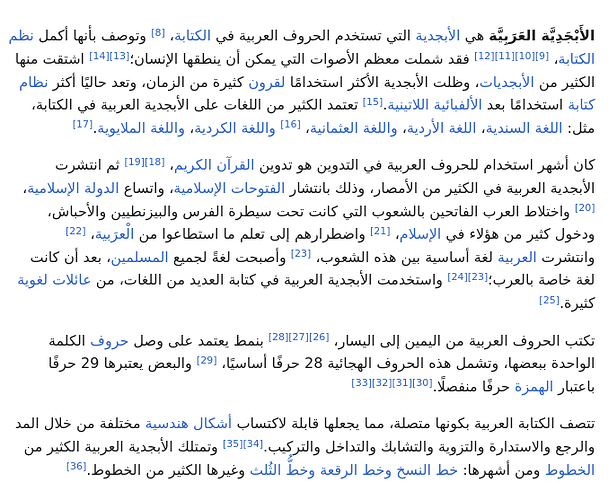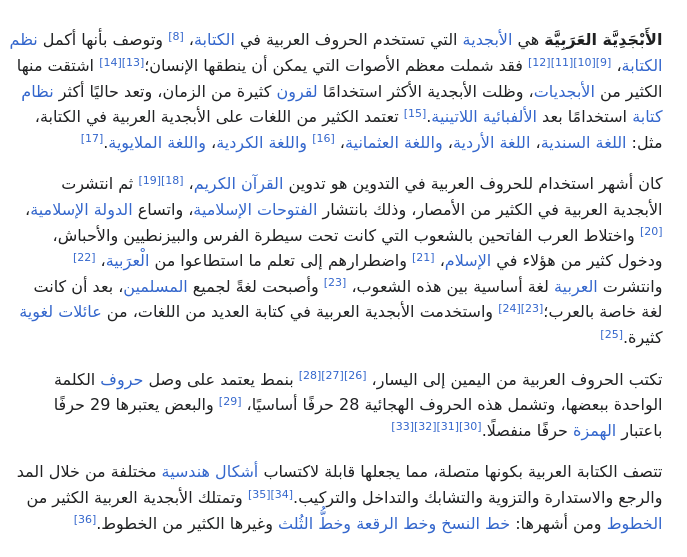
I know the solution by installing some Arabic fonts.
But, my question is why this issue exists till now? And it’s not with KDE version, it’s only with Gnome. What’s the problem? I read posts 6 years ago and more with the same issue, I think that’s weird.
This is the default Arabic font:
I can’t read arabic.
I can’t see the issue you are having
from how you phrased your question.
In other words:
What is the problem?
It should be something like this:
The default Arabic font installed only on Gnome version is not really usable for reading. On KDE, the default one is perfect.
… as I said:
I can’t read arabic.
thus:
I can’t spot a problem.
People who can read arabic might spot your problem.
I can’t.
Perhaps you should explain your problem a bit … better.
It’s all about type of font. The default one on Gnome is not readable. On the other hand, KDE default Arabic font is great. So, I am asking why the default one on Gnome is not like KDE or even other distros.
So what is the name of the font used on GNOME, as opposed to the name of the font used on KDE.
…and what’s the application in the screenshot?
The screenshot is from website Wikipedia. It’s the same font on all the device apps.
The installed Gnome font: Nastaliq or Persian font.
The font that should be installed: Naskh font.
Can you select the Naskh font on GNOME?
We don’t. What fonts? Why do I have to ask?
That is the question that needs to be answered. If you would have provided enough information to begin with, we could answer your question a lot faster.
Both GNOME and KDE include noto-fonts
which provide Arabic fonts like NotoNastaliqUrdu and NotoNaskhArabic.
GNOME also includes noto-fonts-extra
; however that only adds SemiBold NotoNaskhArabic fonts.
Regardless, if the included fonts do not suit one’s needs, one is free to install any font they wish.
Is there a way to change font in settings? Or where to change it?
Installing this font worked: ttf-dejavu
The noto-fonts should work perfectly. The NotoNastaliqUrdu is the font with the issue I am talking about. It should be replaced by NotoNaskhArabic as a default one like KDE by default without any installing packages. I don’t know if there is an option like this in settings.
That font is already installed on GNOME as firefox
and thunderbird
depend on it.
I have absolutely no idea how the default Arabic font is being set by default or why it would be different between Desktop Environments.
What web Browser are you using?
Given Firefox depends on that font, one must assume, if the font is not already installed, then it will be installed when either Firefox or Thunderbird are installed.
First, check if you have changed font settings for Arabic in Firefox:
Second, the order of choosing the default applied font comes from different config files, some residing in /etc/fonts/
and ~/.config/fontconfig/
, search there recursively if any “.conf” file contains the string “Noto Nastaliq Urdu”. Some weird apps may add their own font config files and cause serious problems.
If you don’t see it anywhere, add you own config file to force Arabic to be displayed using for example “Noto Sans Arabic”.
Create new file named
99-arabic.conf
in/etc/fonts/conf.d/
Add the following lines to it then save it
Run
sudo fc-cache -fv
It’s not only on browsers. It’s also on other apps even system apps like File manager.
Thanks for replying.
This method for browser only? Or the whole system? As it’s not only related to Firefox or browsers and I didn’t change anything in the settings. This comes with a fresh install in all apps system or any other apps.
Adding that conf file will force that font for Arabic for your whole system. After saving it, you just need to run sudo fc-cache -fv
and reopen all affected apps.
Sorry for late reply, but I have been testing.
What I found till now:
-
For the system Arabic issue: the vanilla gnome font is Adwaita and changing it to Sans makes this issue in system apps like File Manager.
-
For Firefox: the default font for all languages is Dejavu which I’m not installed on Manjato by default and that’s why when I installed it everything worked fine.
Far from that, is there a way to shift to gnome vanilla with a code or something? I tried installing manjaro-gnome-vanilla and run it, but nothing happened. I don’t know it this can affect this issue or not.
The default GNOME font is now Adwaita instead of Cantarell, but nothing changed on Manjaro. We’ve always used Noto / Sans.
I already told you firefox
depends on ttf-dejavu
. If you had the former installed, then you already had the latter installed.